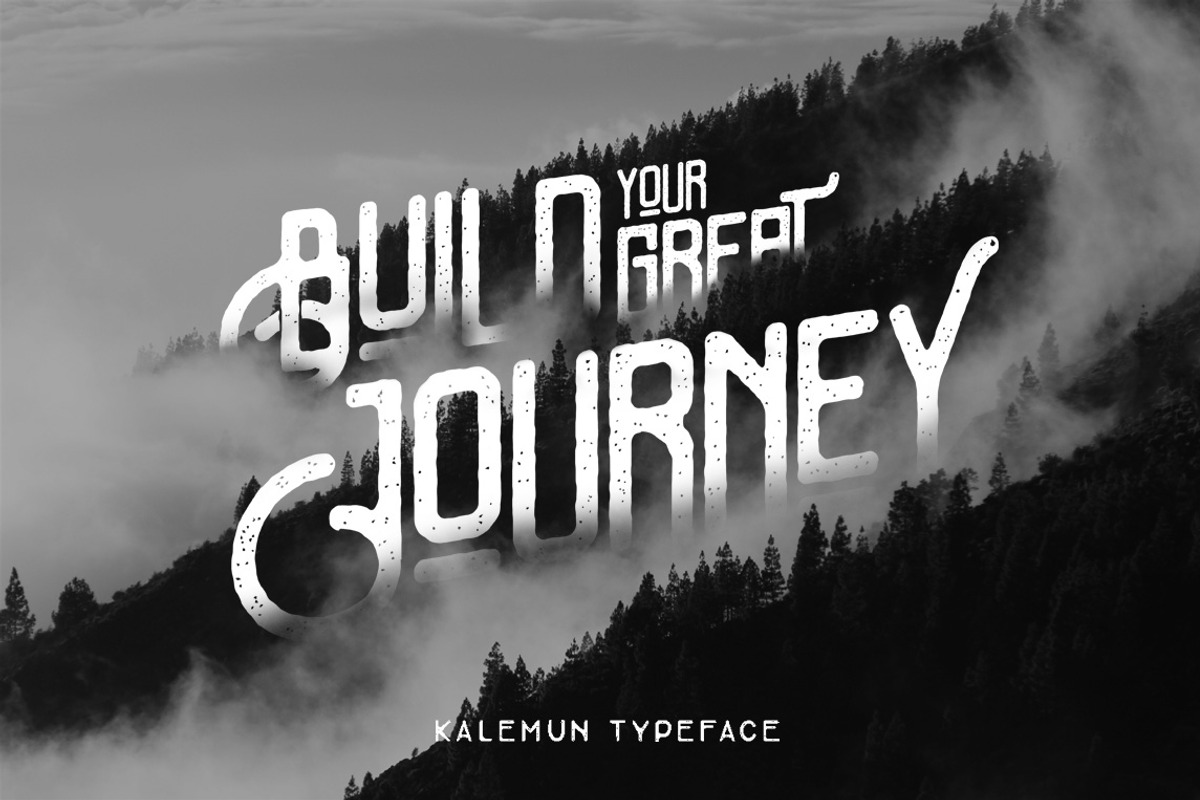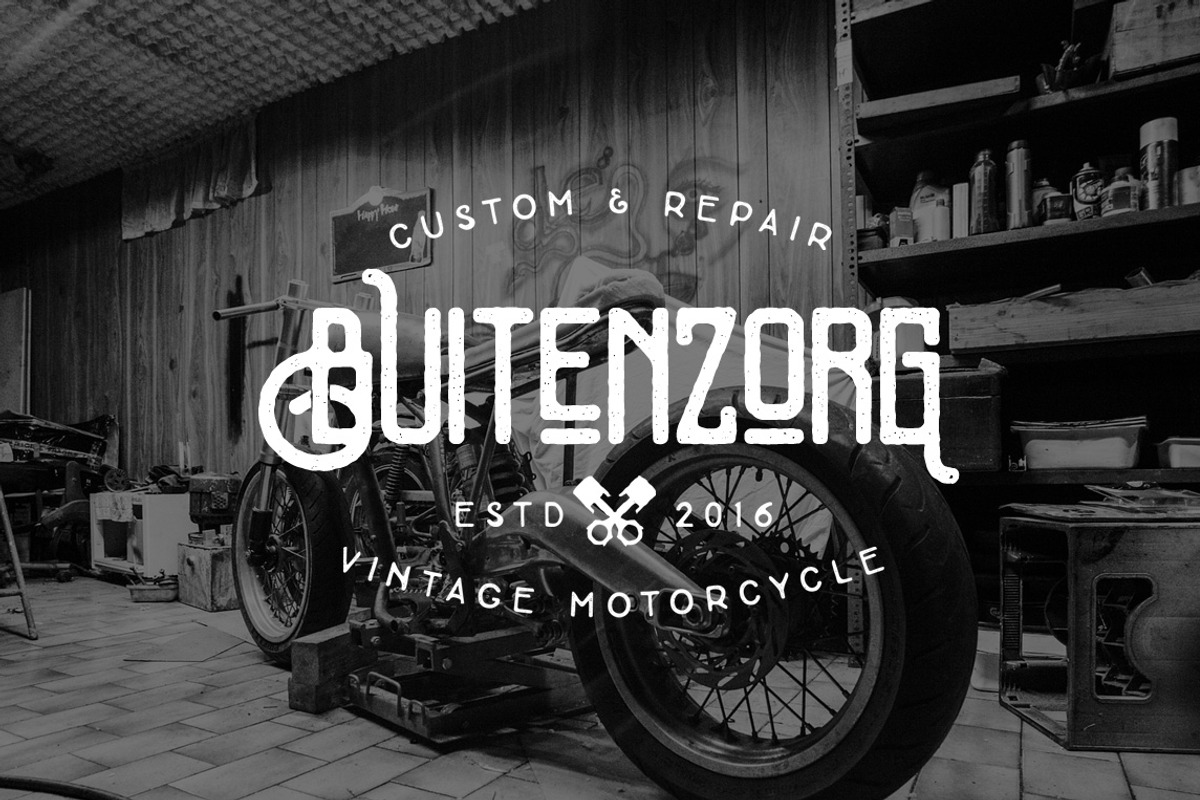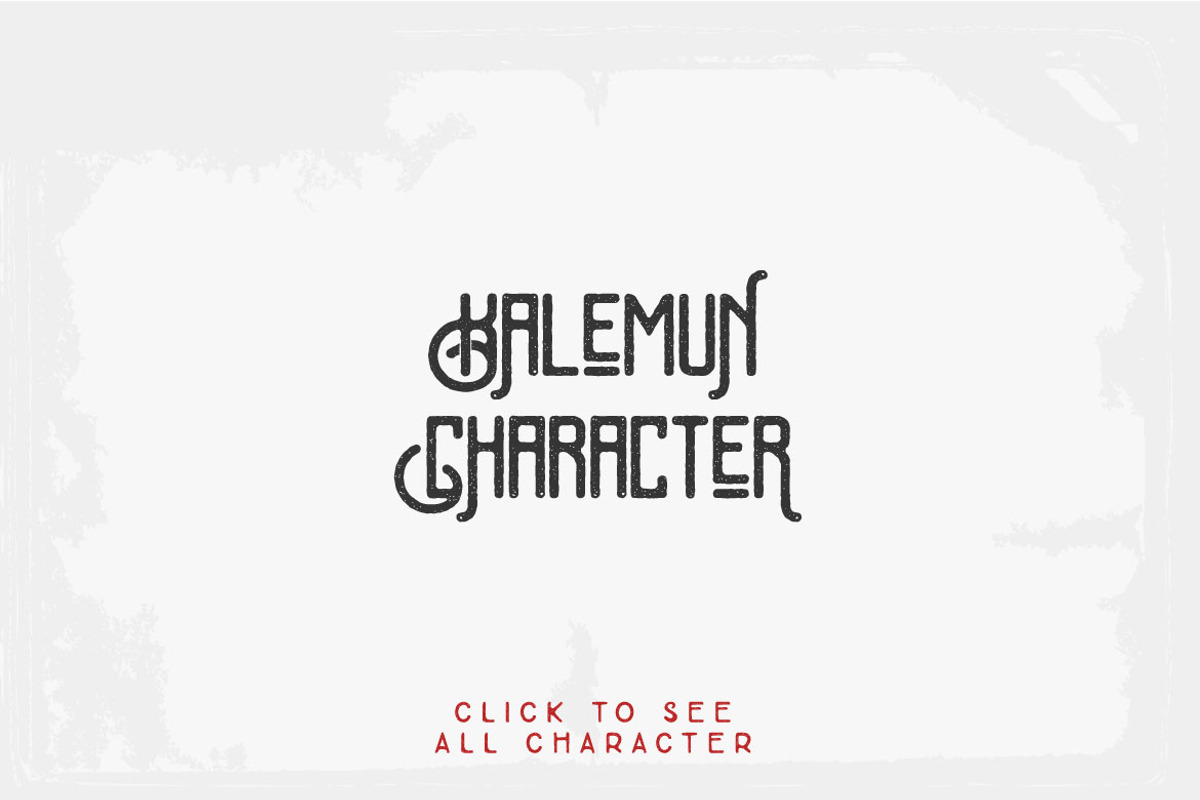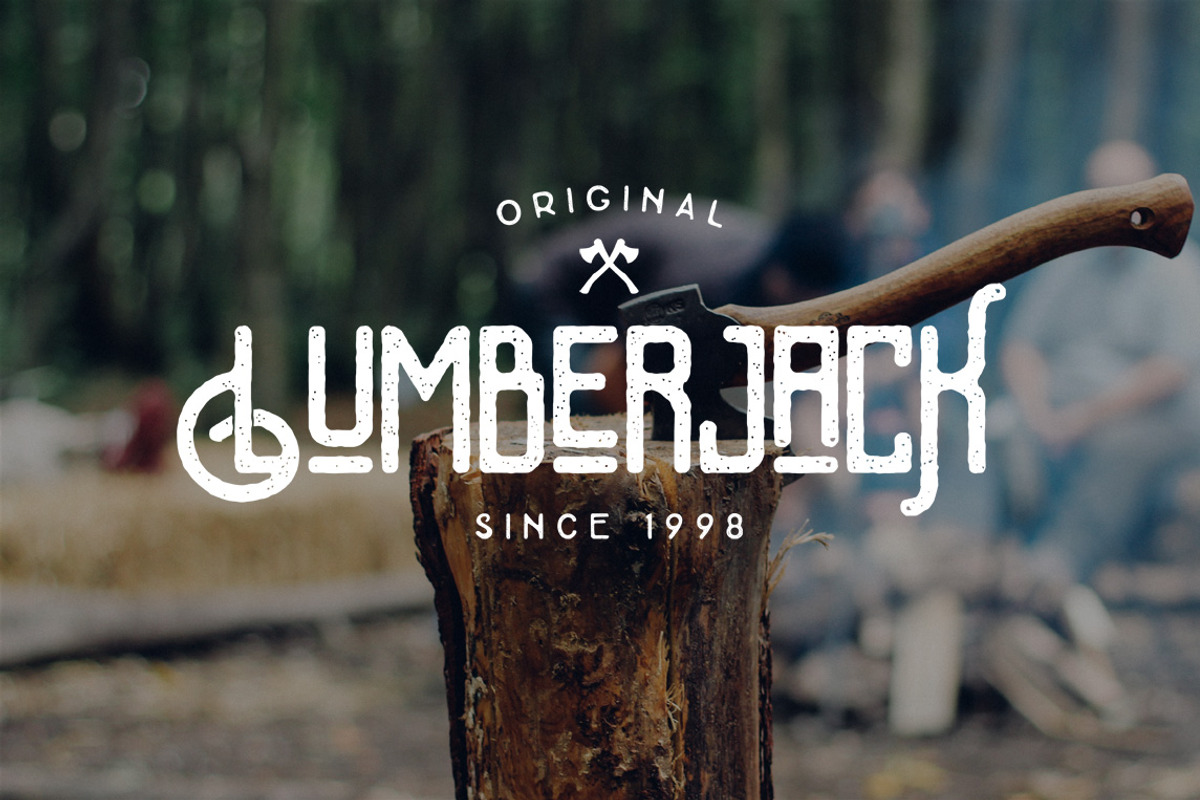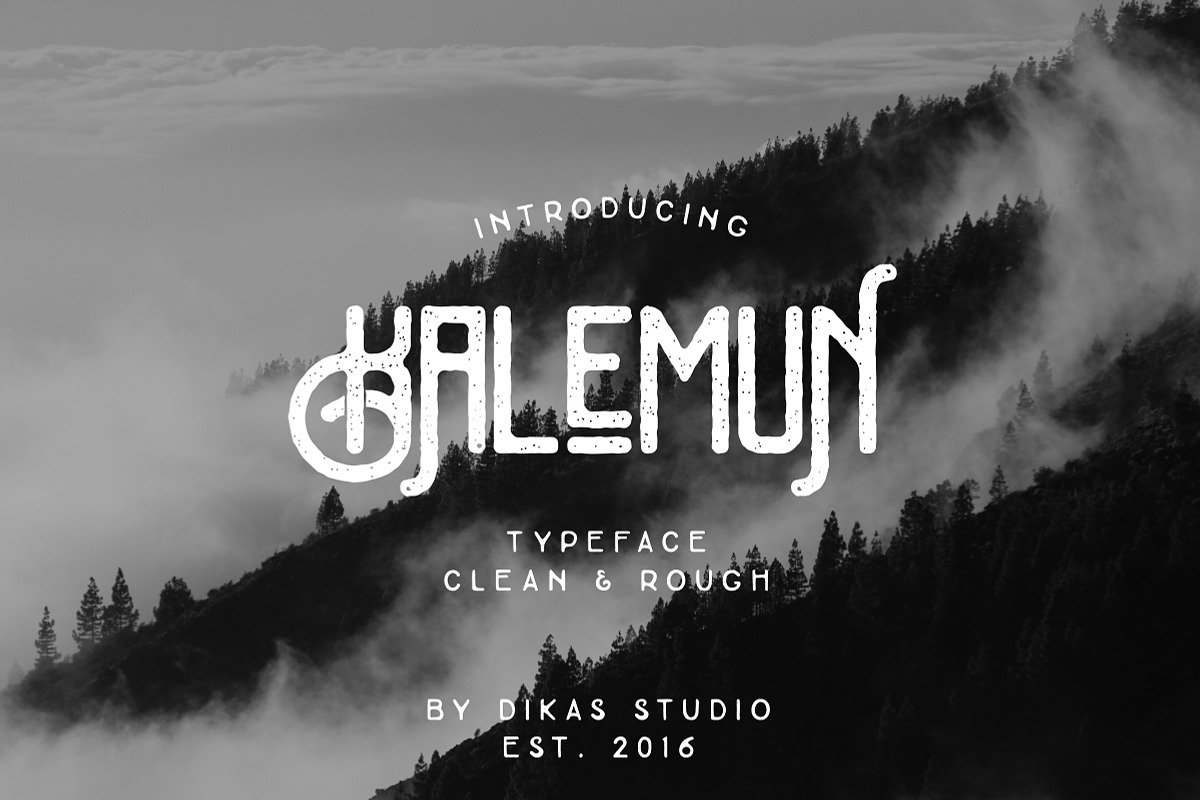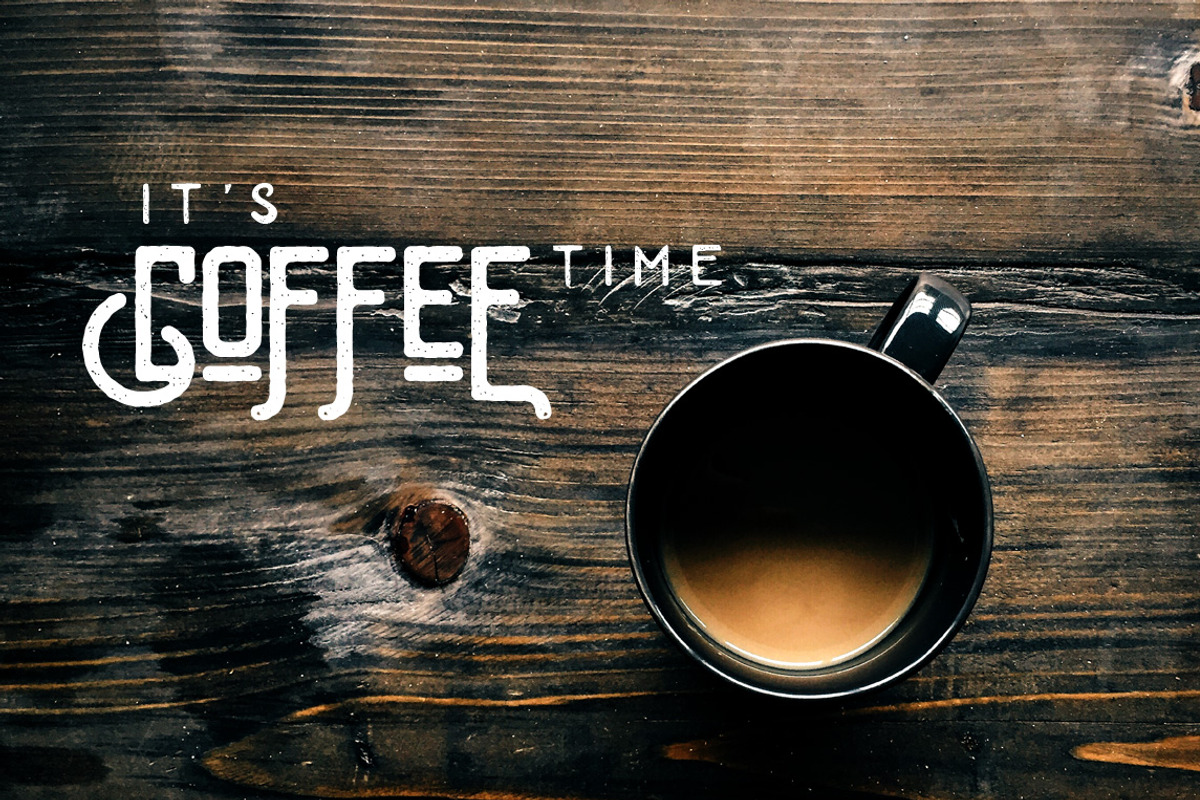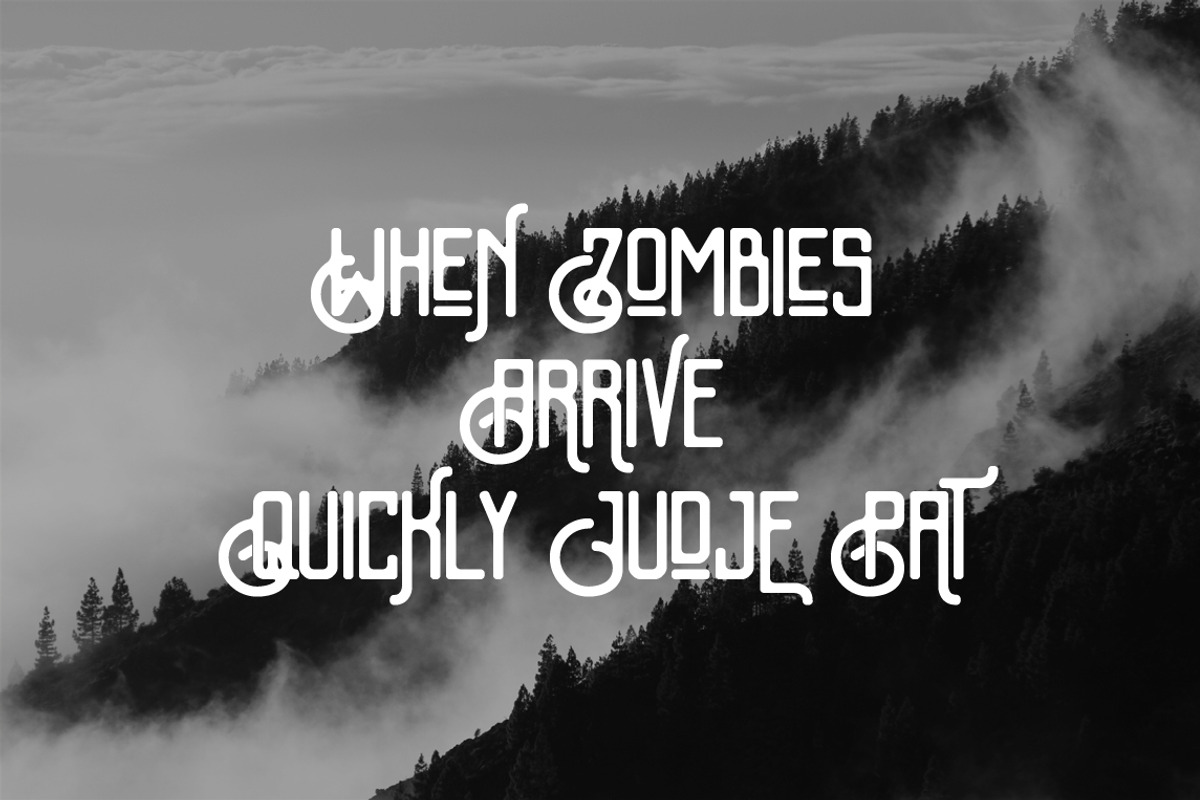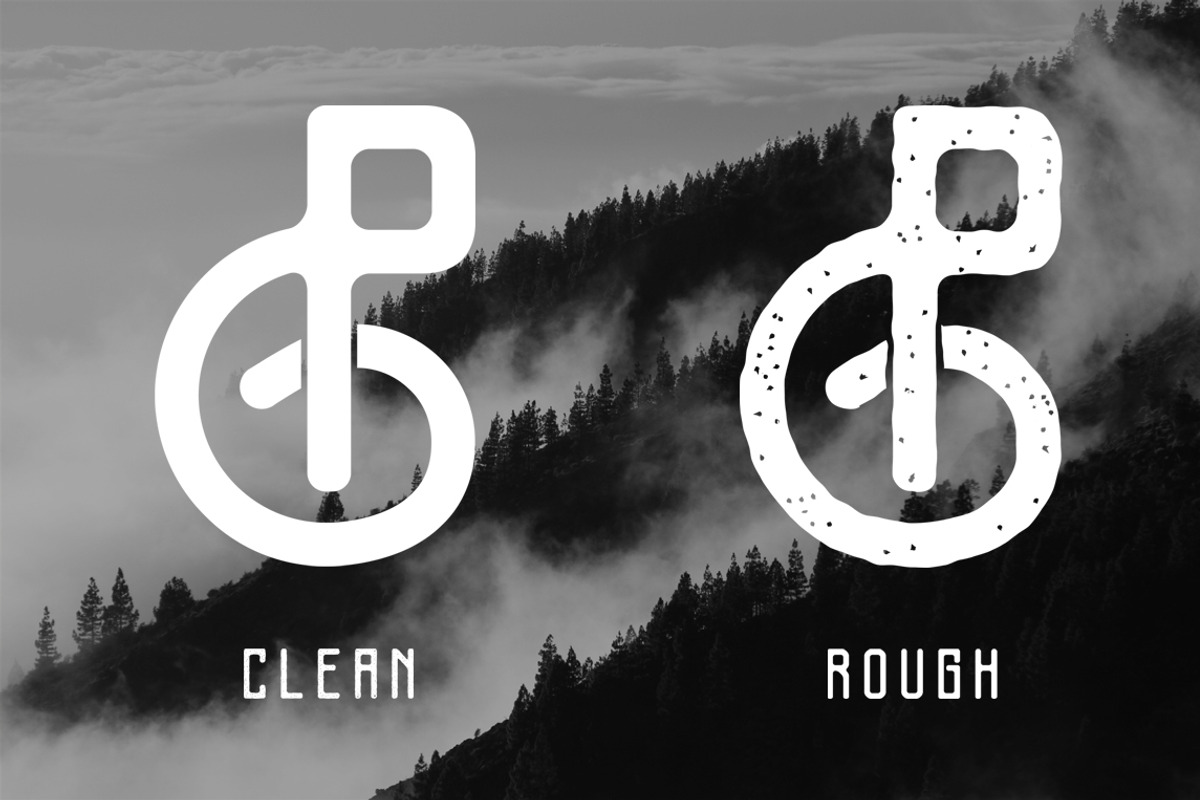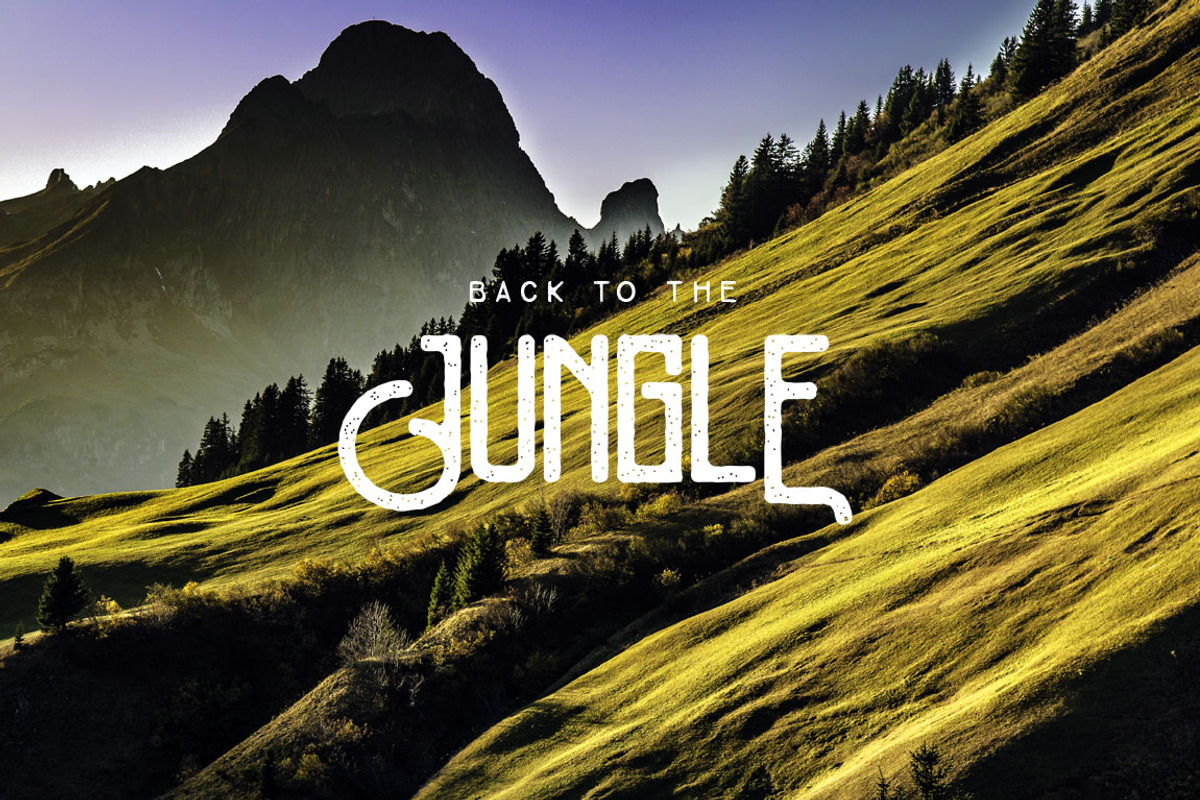
Kalemun Typeface ( Intro 25% - off )
Kalemun Typeface is a Vintage handcrafted font. Comes with 2 version clean and rough it's very helpfull your vintage project. Great choice for branding, t-shirt, poster, flayer, business card, logo,badges and etc.